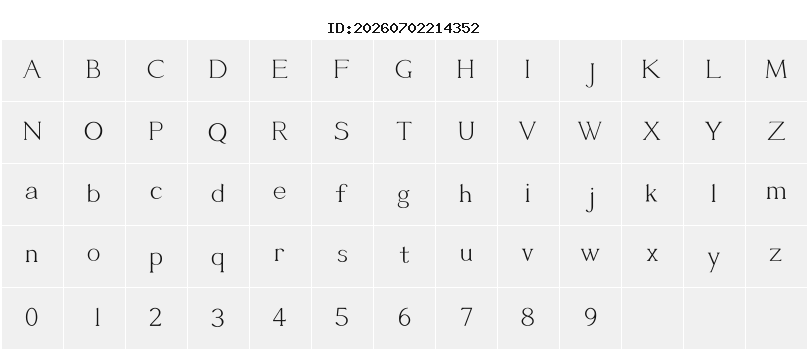
020-上首简宋纤细体 Preview
• Font Name: 020-上首简宋纤细体
• Full Font Name: 020-上首简宋纤细体
About 020-上首简宋纤细体.ttf
020-上首简宋纤细体.ttf is a modern, elegant sans-serif font designed for ultimate readability and visual harmony. Perfect for branding, headlines, web design, and print materials.